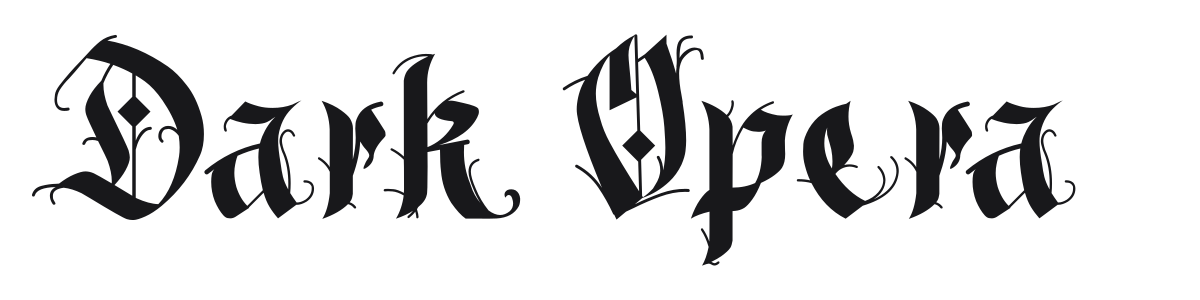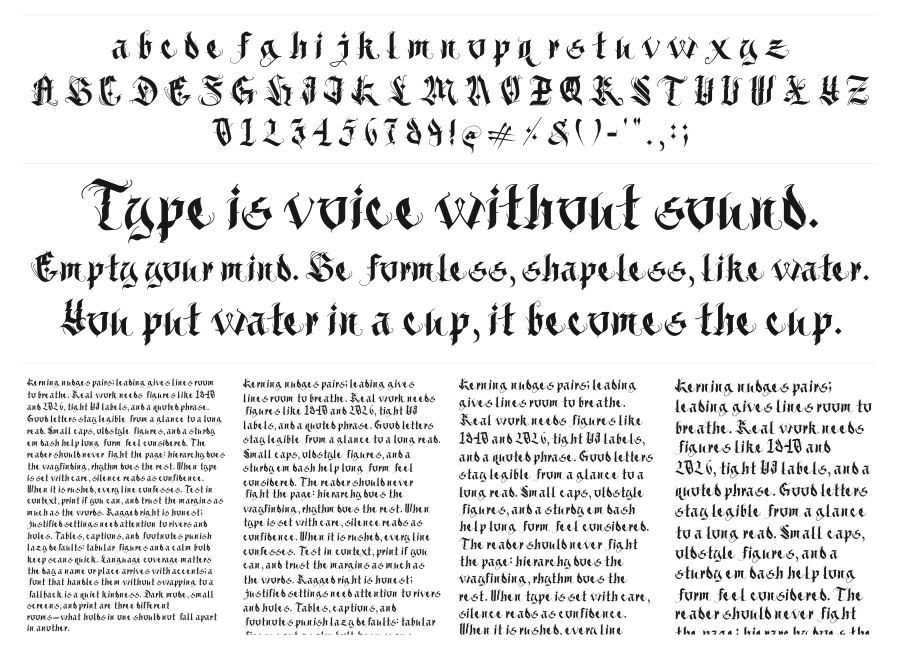
Dark Opera
Dark Opera is a dramatic fraktur blackletter with fierce stroke contrast and sweeping calligraphic energy. The heavy stems are sliced by hairline thins and punctuated with sharp diamond terminals and decorative flourishes that push it beyond historical revival into something more expressive and theatrical. It commands attention at large sizes and suits branding where darkness and intensity are the point.